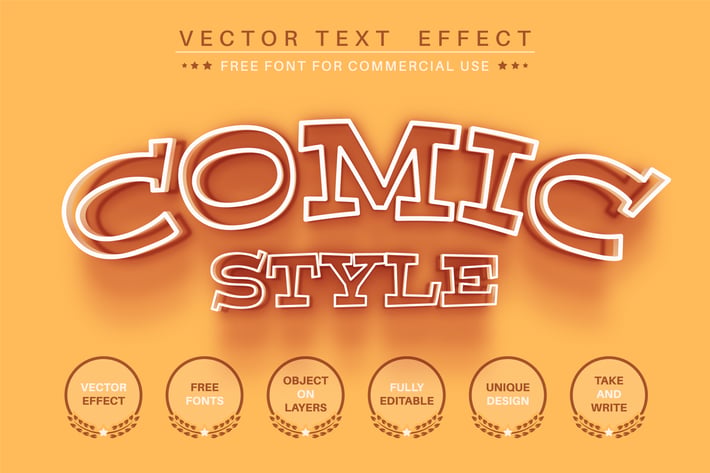
Comic line - editable text effect, font style
Hello! I'm happy to introduce my new text effect "Comic line". Just write your word and the effect will apply! Be as creative as you like to be in expressing yourself using this unique “Comic line”. Effect is perfect for any project that needs a unique handy touch whatever else your imagination leads you to!